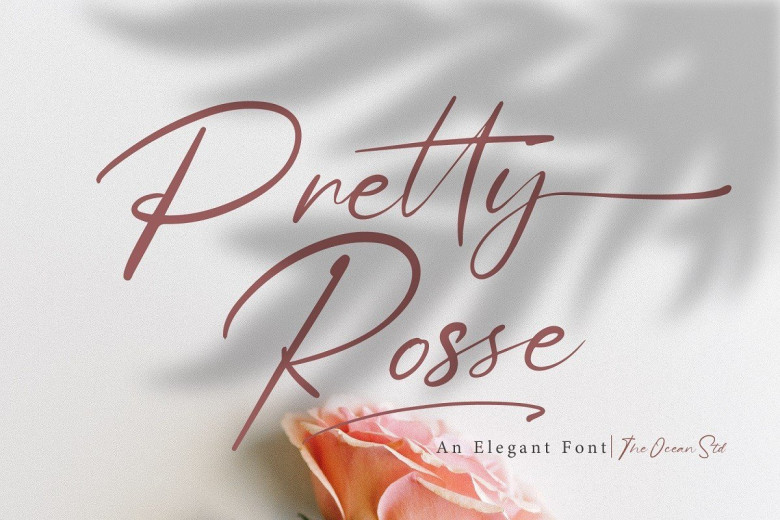
Pretty Rosse Handwritten Signature Font
Pretty Rosse Font is an elegant handwritten signature typeface with in give you vintage and classic style. It’s suitable for greeting card, wedding design, social media post, logo branding and many others.
Pretty Rosse Font comes with two different style ‘ basic’ and ‘dramatic’, includes full set of lovely uppercase and lowercase letters, multilingual symbol, numeral, punctuation and ligatures. Also It includes lowercase with ending and beginning swashes as alternates.